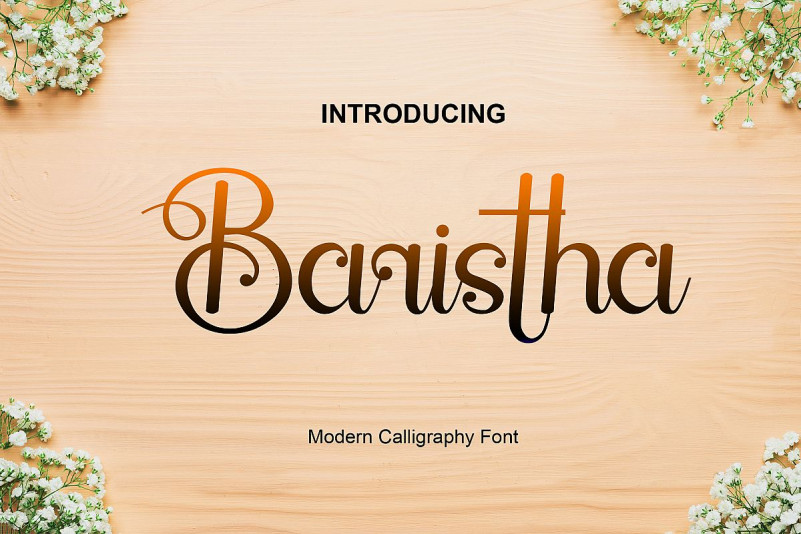
Baristha Font
Baristha Font is perfect for coffee shop branding, café menus, specialty coffee packaging, barista training materials, espresso machine labels, roastery marketing, artisan coffee house signage, and beverage industry publications where coffee culture and craftsmanship are celebrated.
What makes Baristha Font so exciting is its perfect capture of coffee culture's artisanal spirit through letterforms that embody the precision and passion of professional barista craftsmanship while maintaining excellent readability across all café applications. The refined characters reflect the sophisticated art of coffee making and the warm atmosphere of quality coffee establishments.
The Baristha Font family includes light, regular, medium, bold, and black weights, with complementary script variants and coffee-themed decorative elements that provide comprehensive tools for creating cohesive coffee brand experiences and café design systems.
This sophisticated typeface represents the evolution of coffee culture typography, combining artisan authenticity with contemporary design standards. The Baristha Font Free Download offers coffee businesses access to typography that communicates expertise and passion for quality coffee experiences.
The font's carefully balanced proportions and warm character details create immediate associations with premium coffee culture and artisan beverage preparation. Each letterform has been crafted to evoke the precision and care that defines exceptional barista work.
Baristha Font transforms coffee brand communications into compelling narratives that celebrate coffee craftsmanship and café culture. The typeface's professional yet approachable character makes it ideal for businesses targeting serious coffee enthusiasts and quality-conscious consumers.
From specialty roasters to third-wave coffee shops, this font delivers authentic coffee culture atmosphere that enhances brand credibility and consumer connection. The versatile design works beautifully across packaging, signage, and digital applications while maintaining its artisanal coffee character.